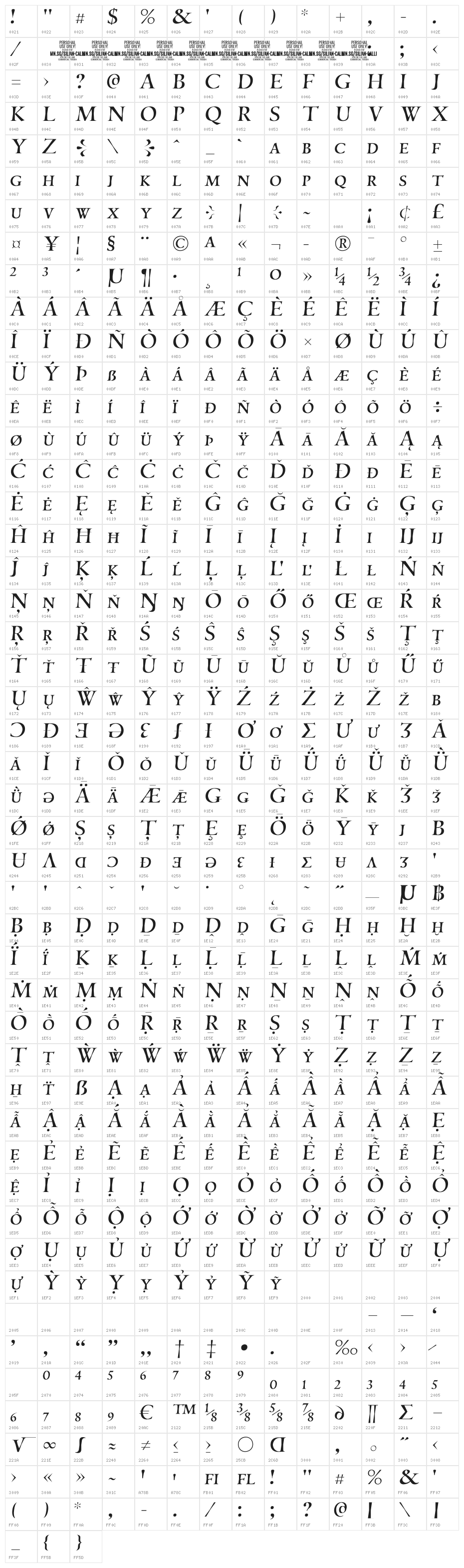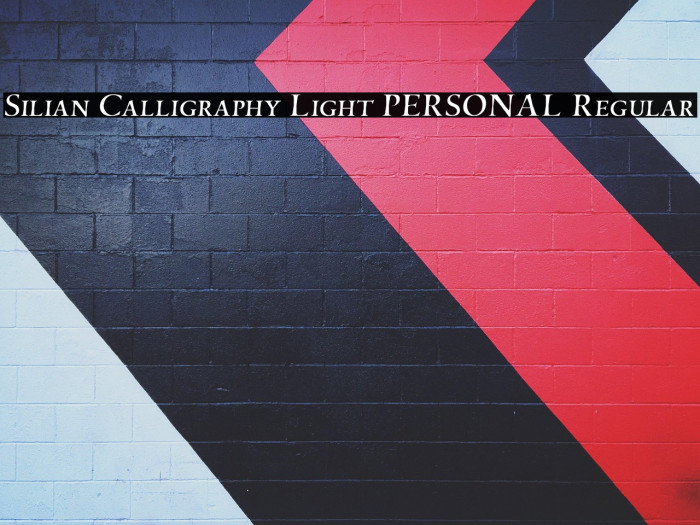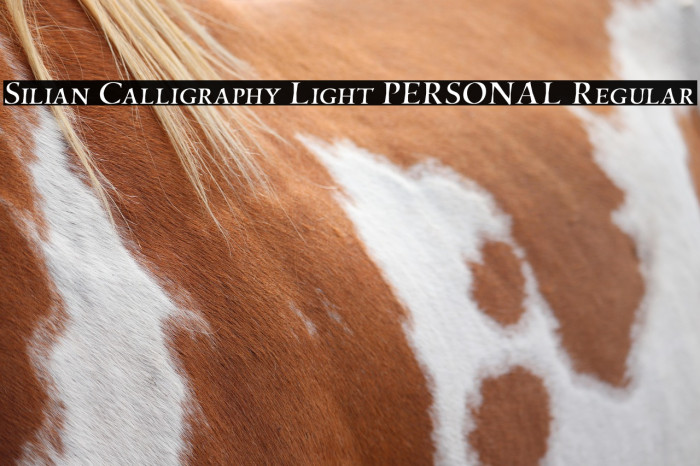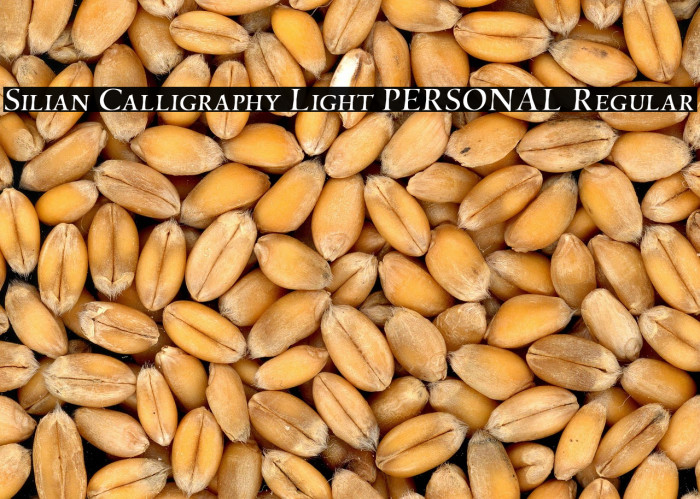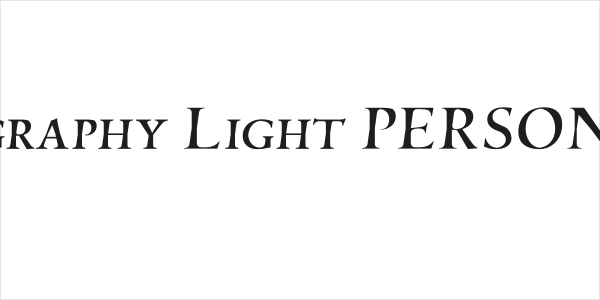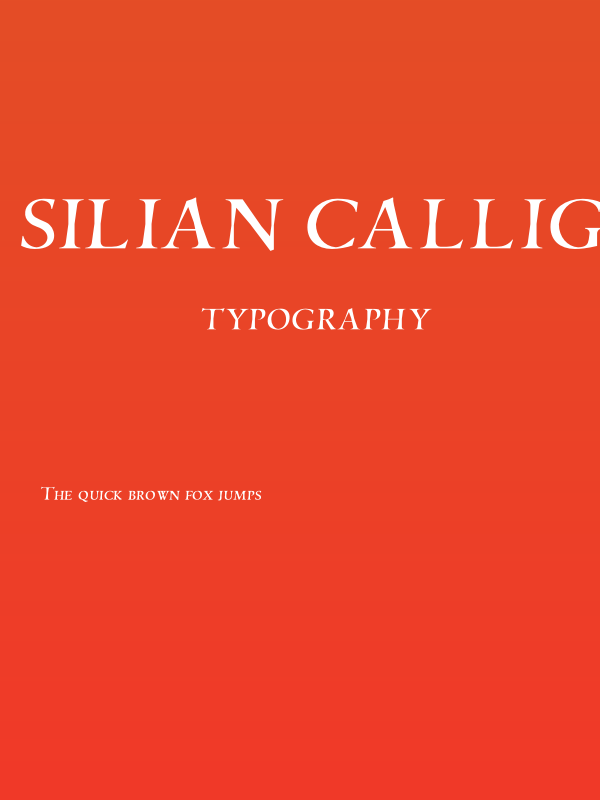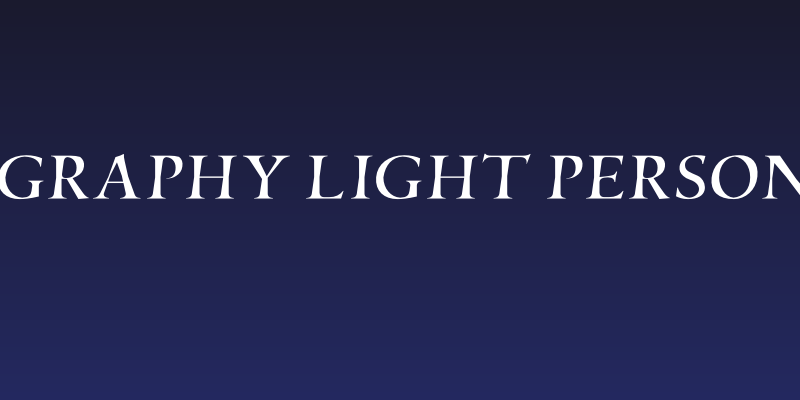
Silian Calligraphy Light PERSONAL Regular Font
Silian Calligraphy Light PERSONAL Regular Description
This font exhibits a classic calligraphic style with elegant, flowing lines and a refined aesthetic. The uppercase letters are characterized by their graceful curves and slight slant, giving them a sophisticated appearance. The lowercase letters maintain a consistent style, with smooth transitions and a harmonious balance between thick and thin strokes. The numerals are designed with a similar elegance, ensuring readability while maintaining the overall aesthetic. Special characters are crafted with attention to detail, complementing the font's calligraphic nature. This font is ideal for projects that require a touch of elegance and tradition.
| Use Case | Headlines, Invitations, Branding |
| Proposed Projects | Ideal for wedding invitations, formal event programs, elegant branding, and classic book covers. |